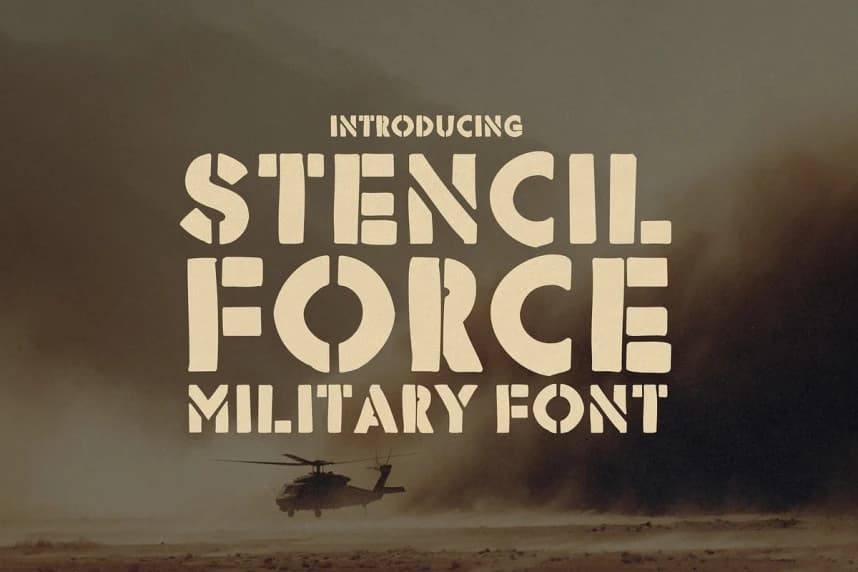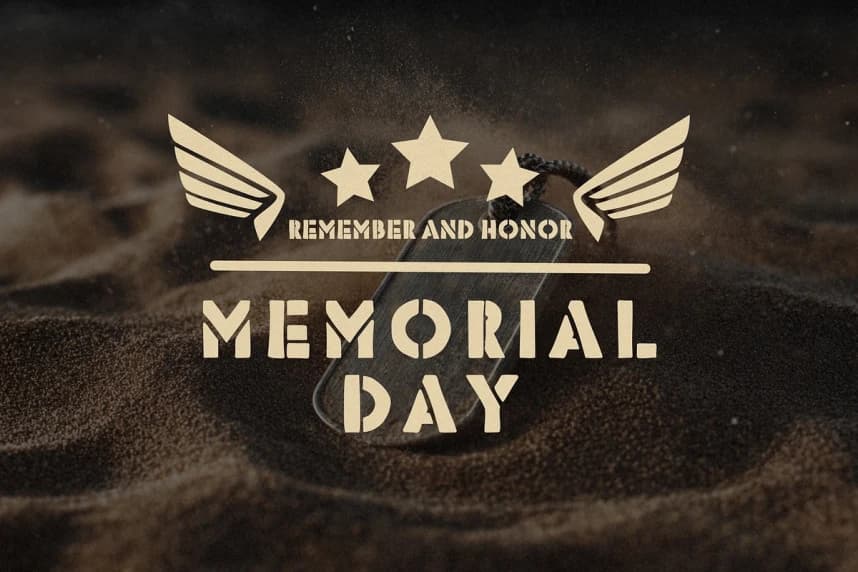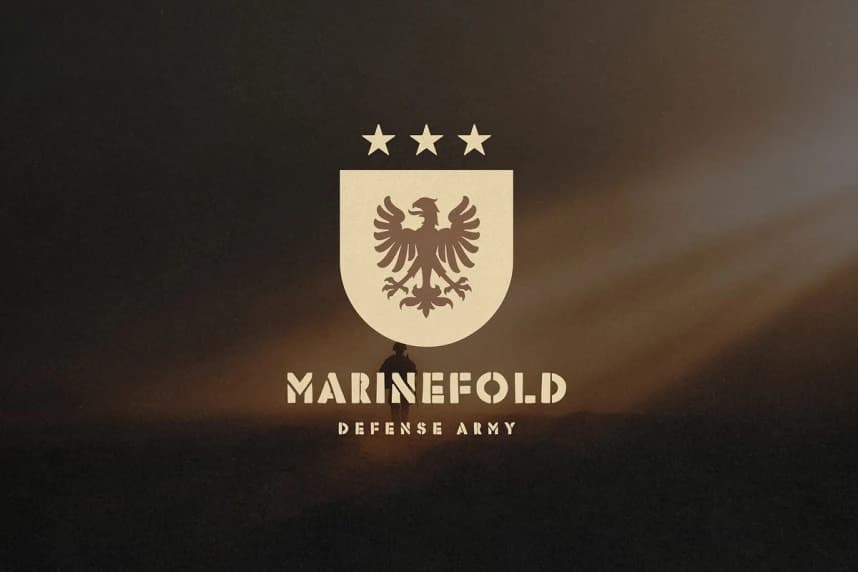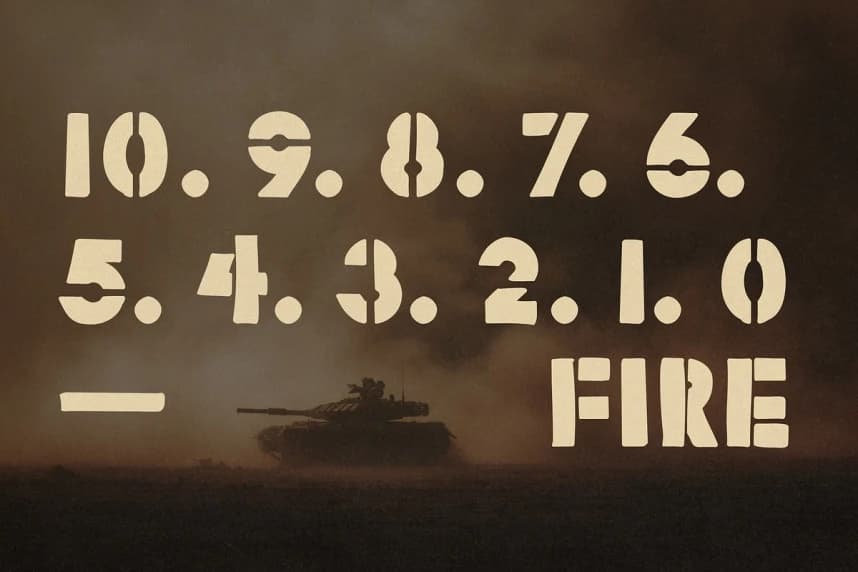
Stencil Force Font
Stencil Force Font is a rugged, battle-tested military font forged for commanding attention. Inspired by real-world military stencils used on crates, vehicles, and gear, this all-caps powerhouse delivers authentic grit with a modern edge.